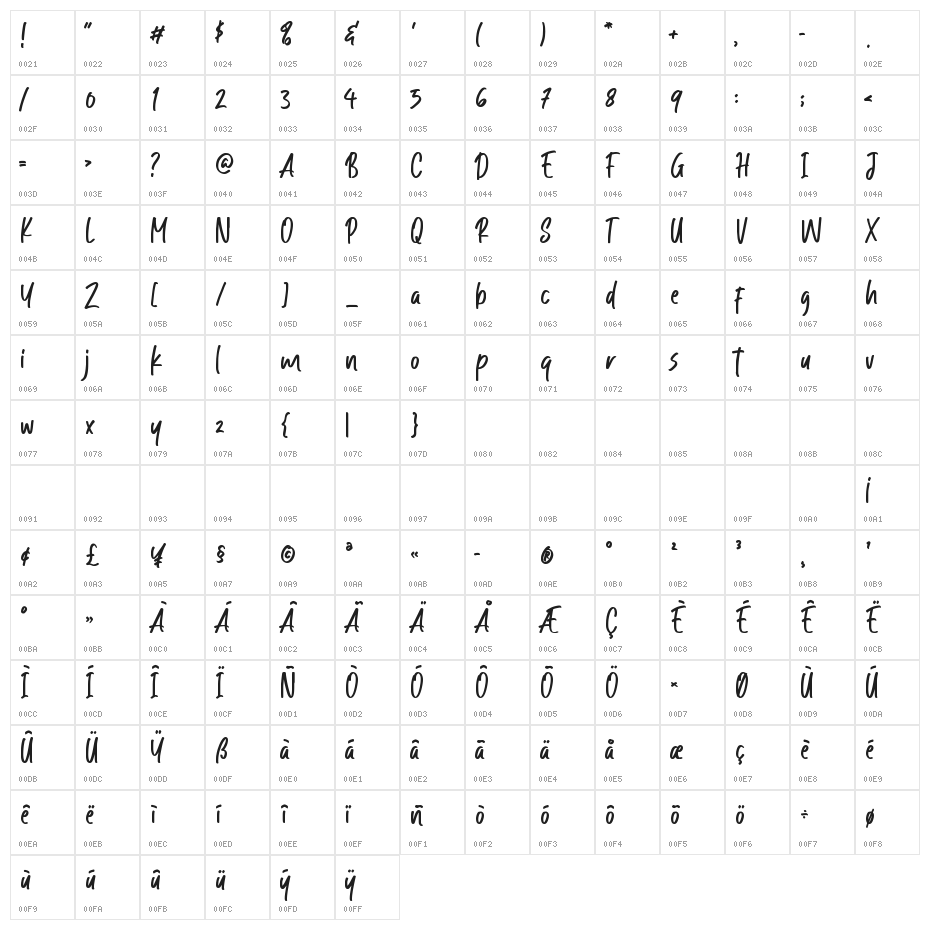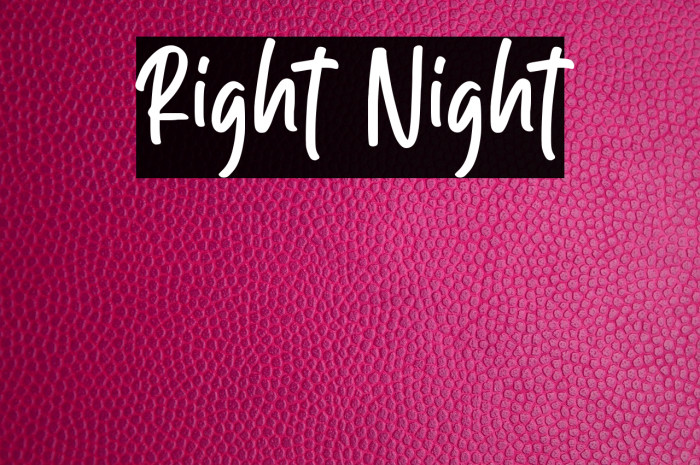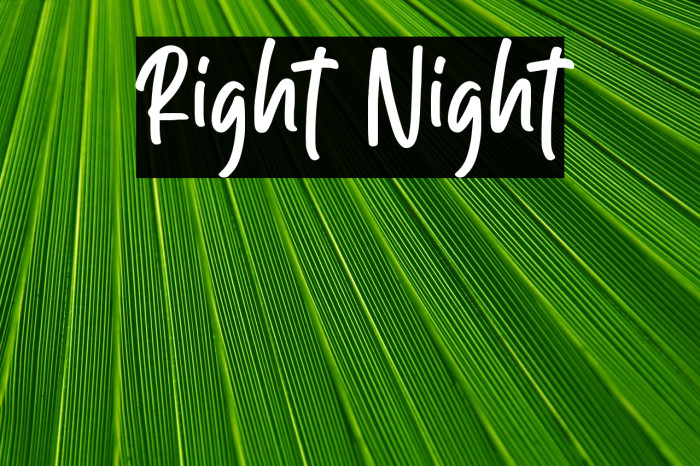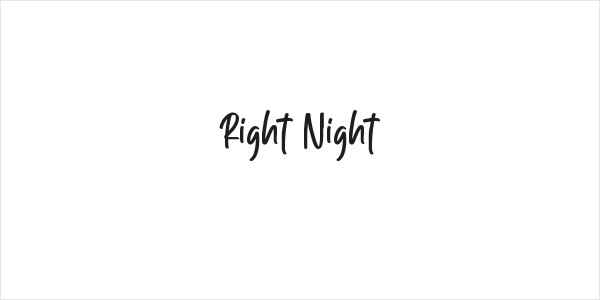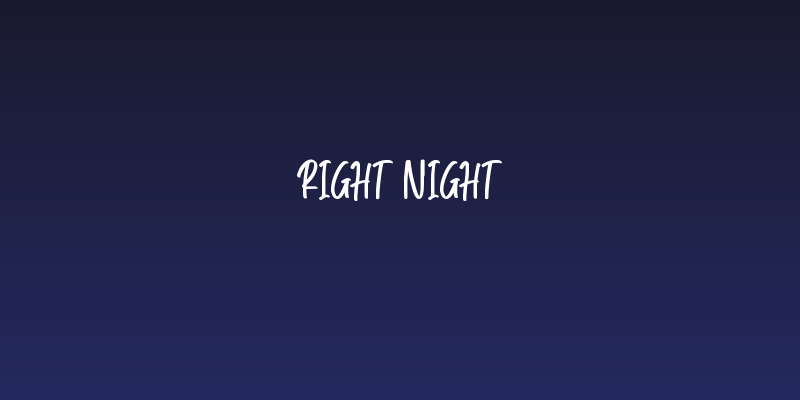
Right Night Font
Right Night Description
A casual, handwritten script font with smooth, flowing strokes and natural letterforms, featuring variable heights and slightly irregular shapes for an informal, friendly appearance.
| Overall Style | Casual, Modern, Friendly |
| Use Case | Logos, Headlines, Informal body text, Invitations |
| Proposed Projects | Greeting cards, social media graphics, invitations, branding for creative businesses, personal notes. |